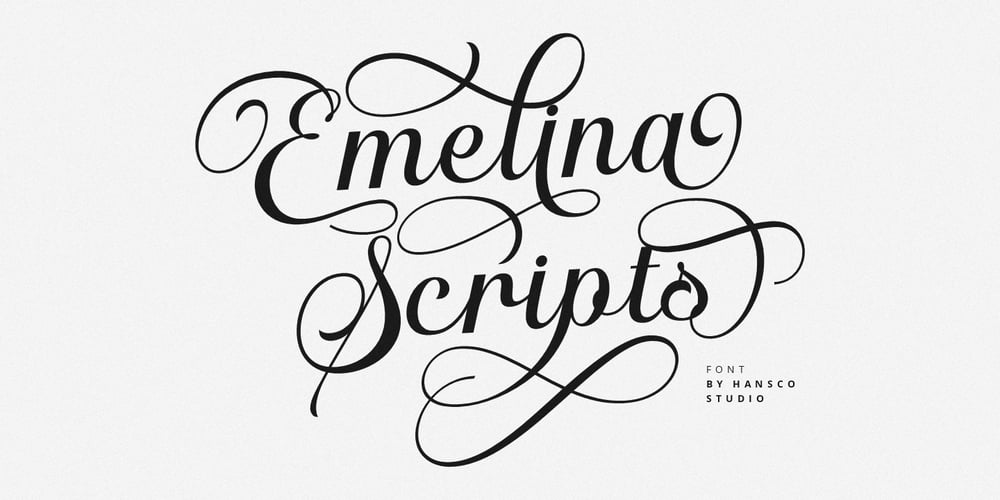
Emelina Scripts
Emelina Scripts font
Emelina Scripts Font Family was designed by Burhan Afif and published by HansCo. Emelina Scripts contains 1 styles and family package options. Emelina Scripts Font is a clean and modern script font carefully created with a touch of elegance. This font is specially crafted for those who need a beautiful and refreshing look to their designs. This font is perfect also for creating print templates like posters, branding, quotes, blog titles, fashion, invitations, greeting cards, business cards, clothing, stationery or anything else.We highly recommend using a program that supports OpenType features and Glyphs panels like many of Adobe apps and Corel Draw, so you can see and access all Glyph variations.How to access alternate? : https://hanscostudio.com/tutorial/Enjoy!